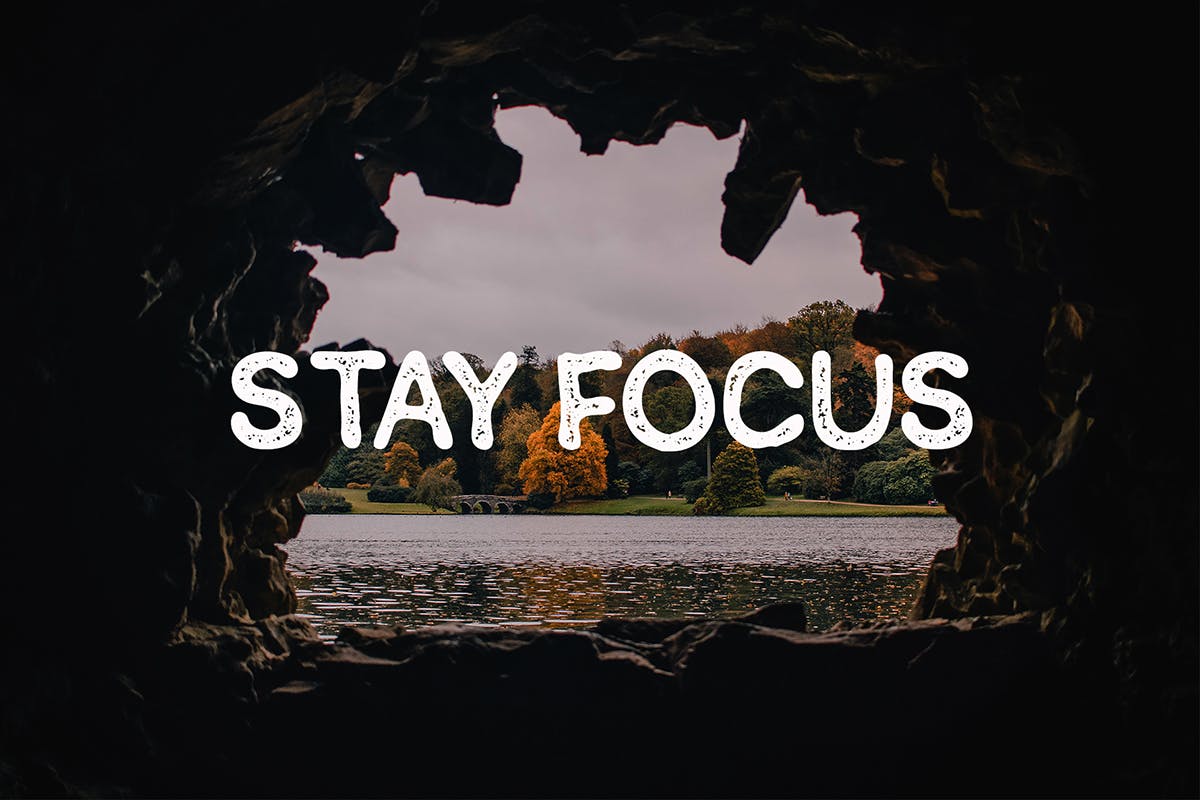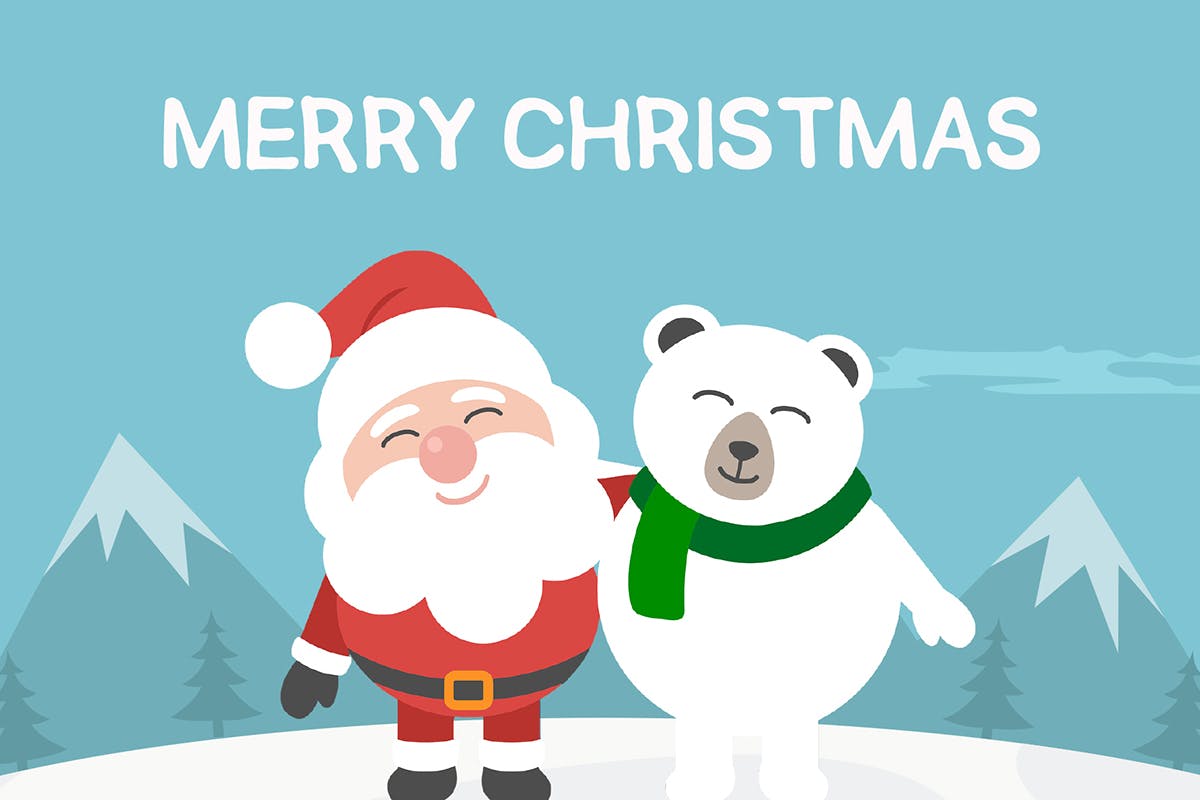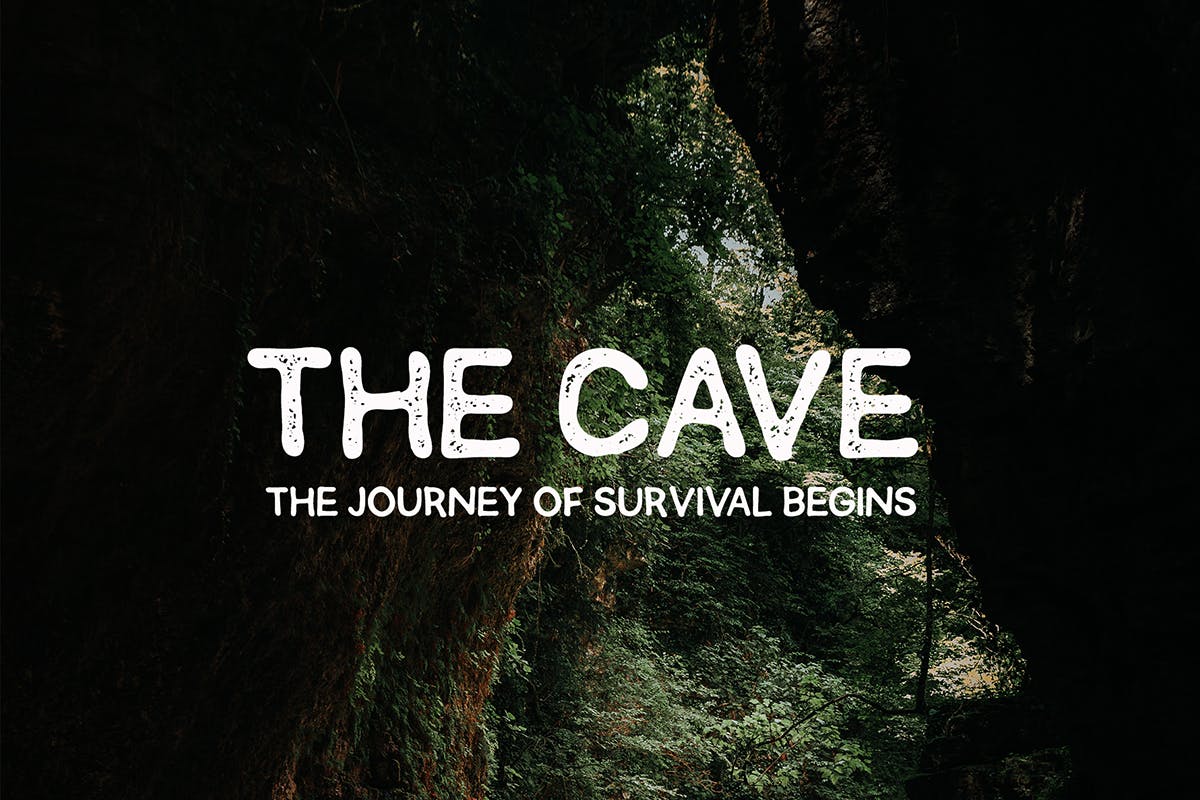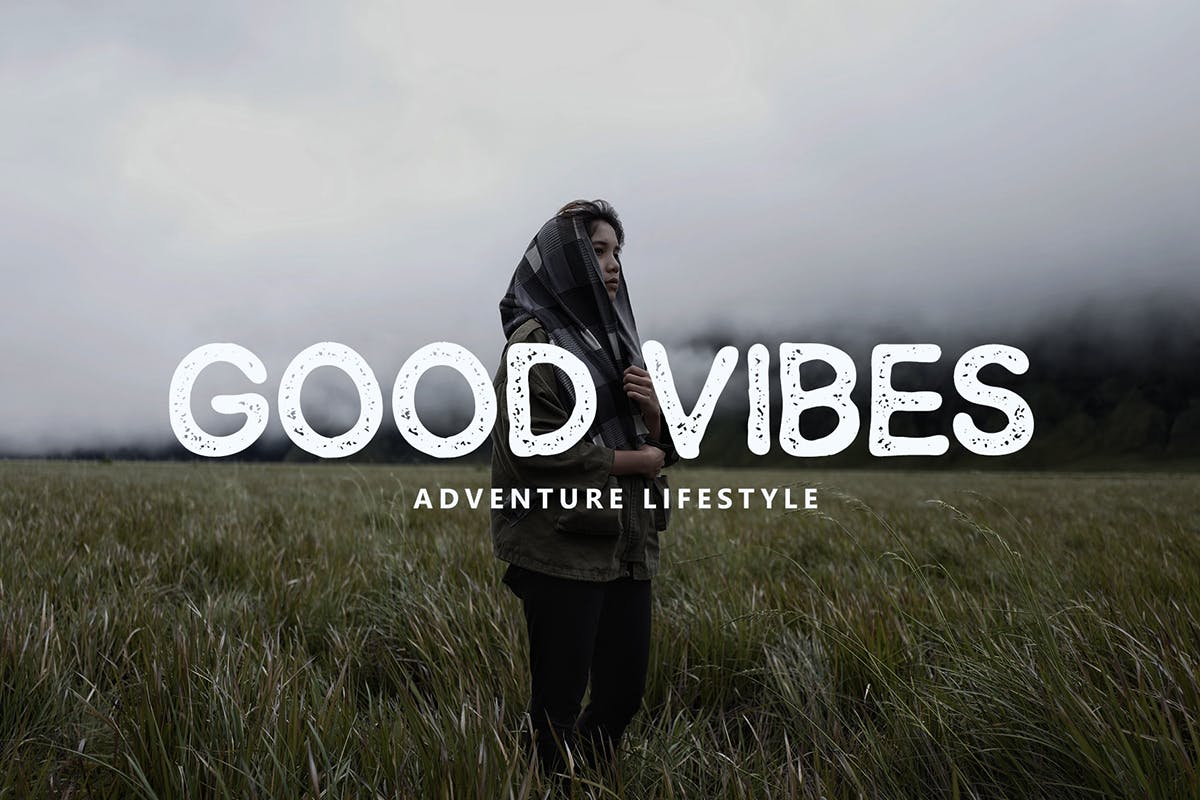
Free Semeru Handwritten Font
Today, we get a new freebie font which is Free Semeru Handwritten Font. It is an awesome display font for you to use on your works. This free font is coming with TTF file that you can install on your computer to use it. It is suitable for your projects such as merchandise, packaging, T-shirt, mug, and more. However, this font is available for personal license use, but if you want to get more features, you can check the premium version below.